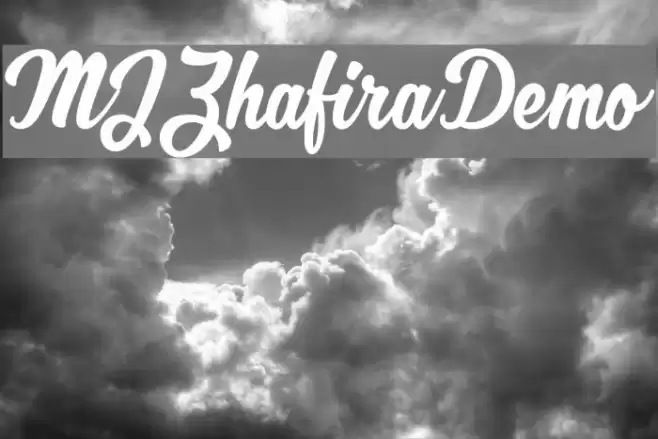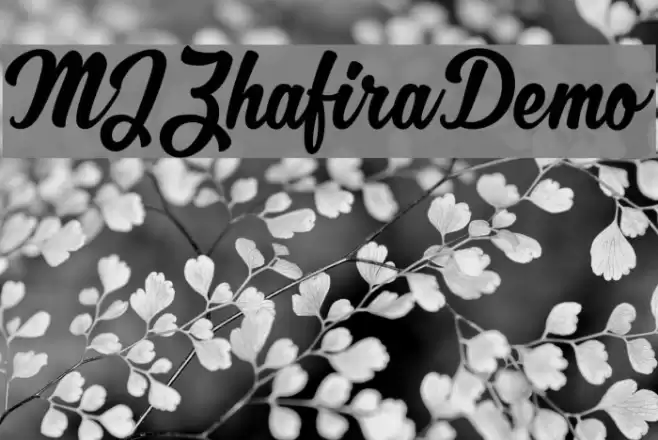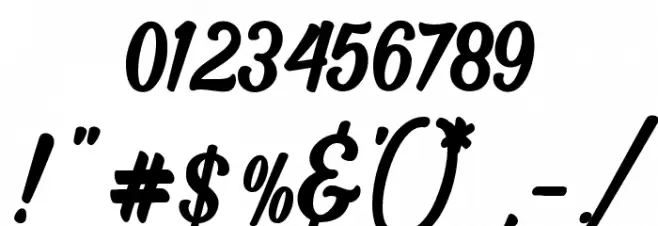
MJZhafiraDemo Font
MJZhafiraDemo Description
This font features a bold and flowing script style, characterized by its elegant and cursive letterforms. The uppercase letters are particularly ornate, with sweeping curves and flourishes that give a sense of movement and grace. The lowercase letters maintain a consistent flow, enhancing readability while retaining a stylish appearance. Numbers and special characters are designed to match the overall aesthetic, ensuring a cohesive look across all text. The font's bold weight and smooth curves make it suitable for creating impactful and visually appealing designs.
A bold, flowing script font with elegant cursive letterforms from Uncategorized fonts.
- Proposed Projects: Ideal for wedding invitations, branding, logo design, and elegant signage.
- Use Case: Logos, Headlines, Invitations